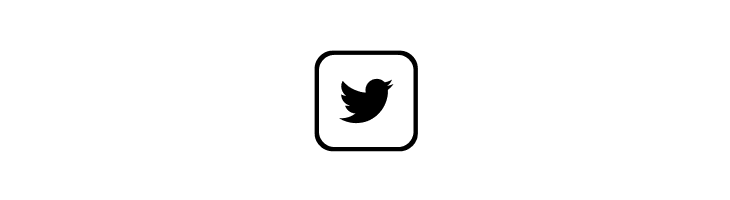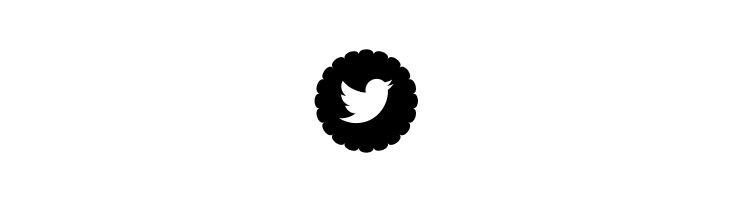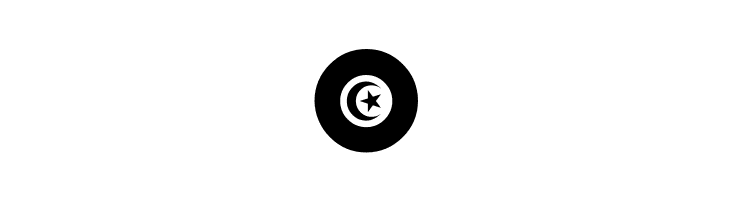
Uniform set of outlined social and tech brand icons.
Pictogram font with ISO 7010 mandatory safety symbols.
Uniform, scalloped circular icons for various social media and tech brands.
A decorative set of horse and equestrian-themed pictograms and icons.
Bold, pictographic police and law enforcement icon set.
Bold, playful orchestra and music-themed icon set in silhouette style.
A bold iconographic font composed of clear, playful pictograms.
A playful font depicting the ASL alphabet with cartoon-style hand gestures.
A decorative icon font of world flags in circular, high-contrast silhouettes.
A decorative icon font of world flags in a minimalist, monochrome style.